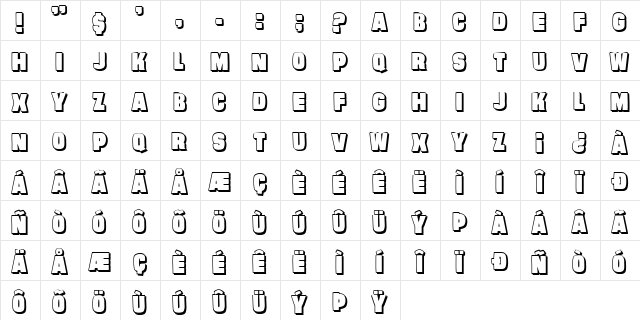
Evil Conspiracy Shadow Shadow
| Foundry | FrΤβic Rich |
| Designer | FrΤβic Rich |
Design Context for Evil Conspiracy Shadow Typeface
Evil Conspiracy Shadow is built around its visual character rather than neutral utility — its distinctive forms are designed to make an impression at display sizes.
Font Pairing: Pair with a clean neutral sans-serif for body copy to let Evil Conspiracy Shadow's character lead without overwhelming the composition.
Pro Tip: Treat Evil Conspiracy Shadow as the centrepiece of your typographic hierarchy. One strong heading set in a decorative face can carry an entire layout.